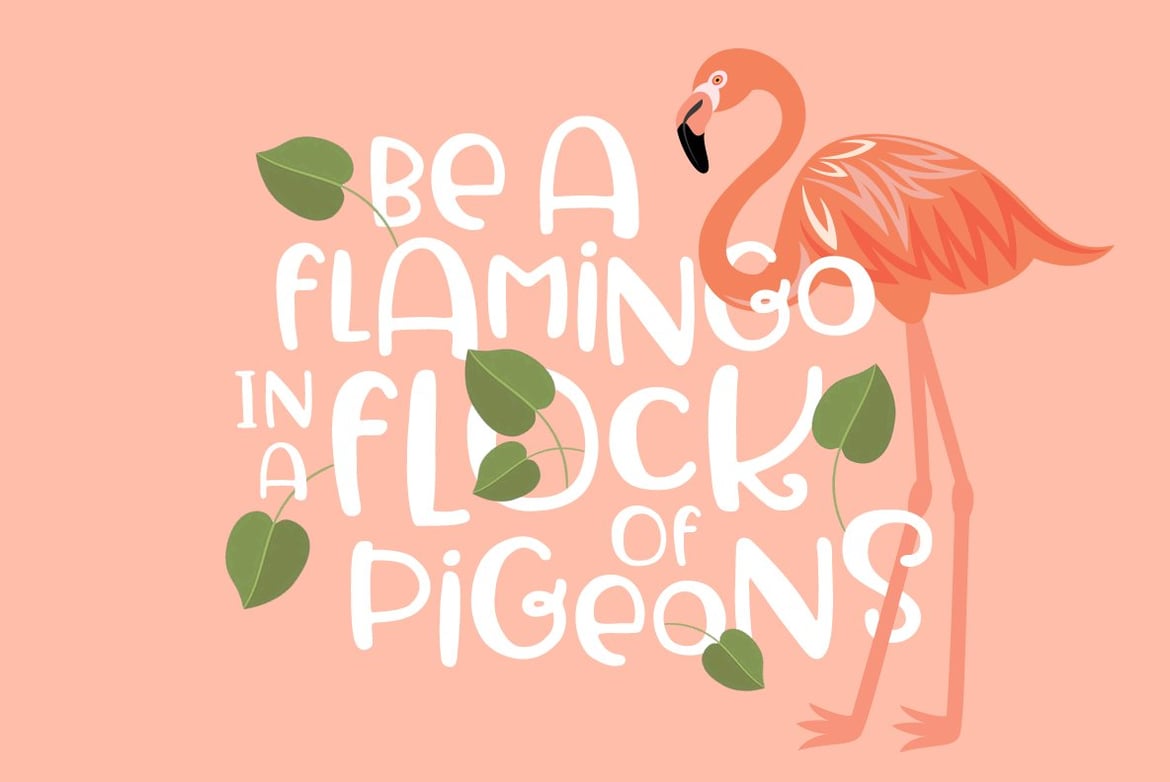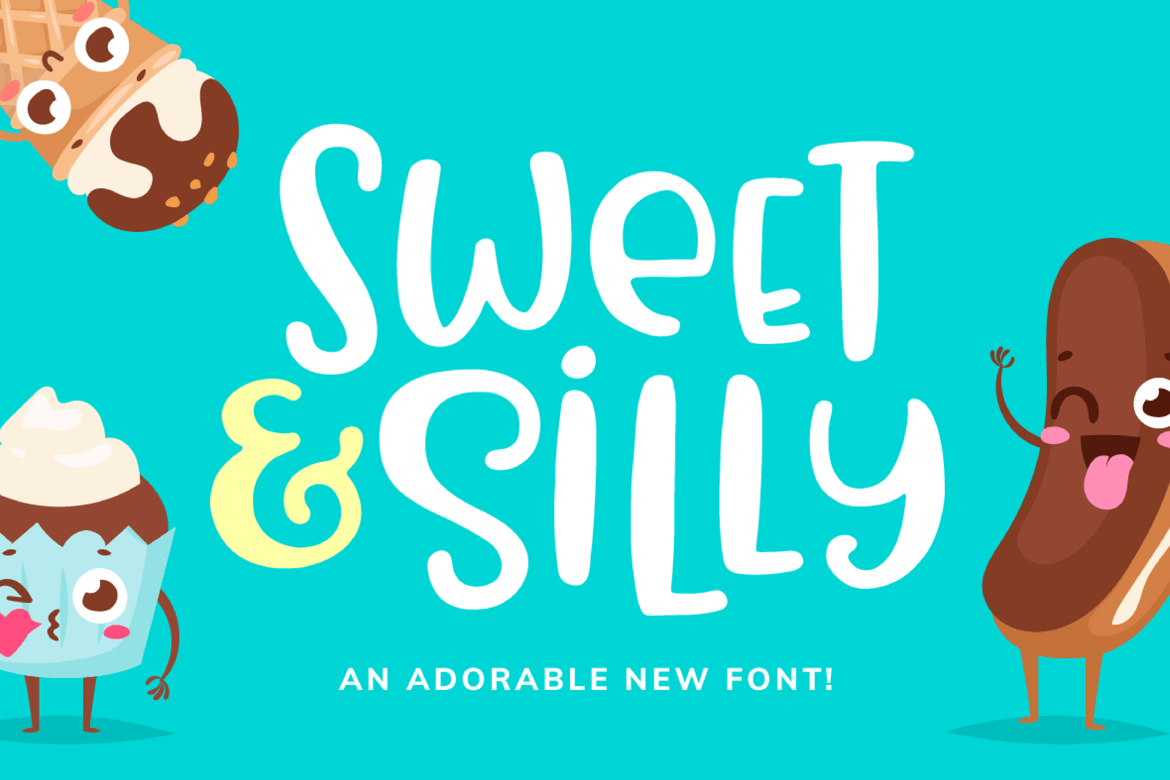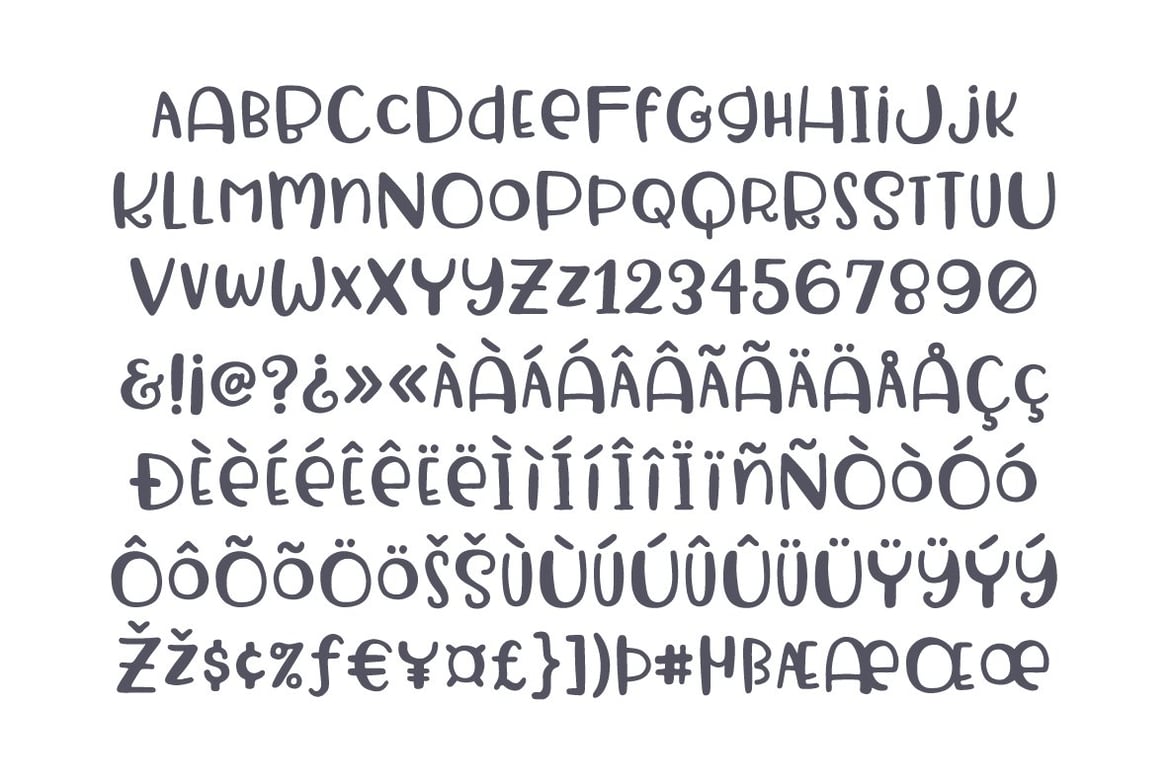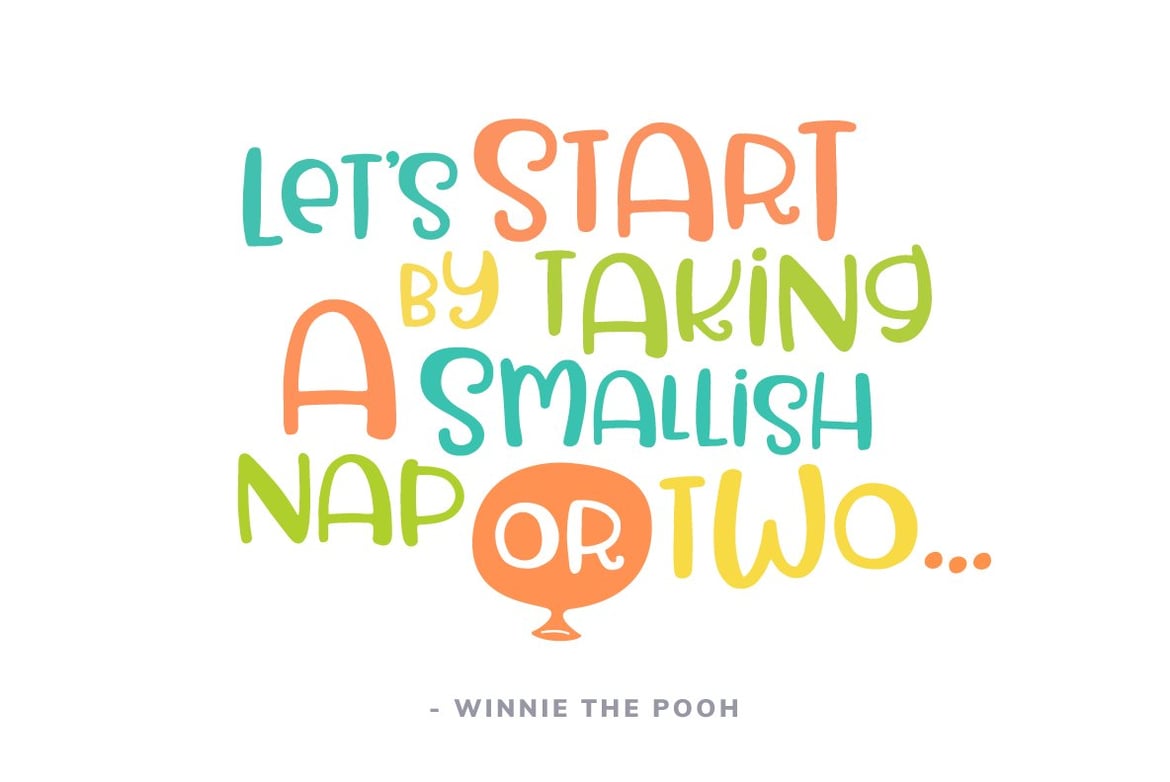
Sweet and Silly Font
Sweet & Silly! An adorable font that will bring a smile to your face every time you use it. Its cute, curly style is perfect for a children’s book or baby shower invitation.